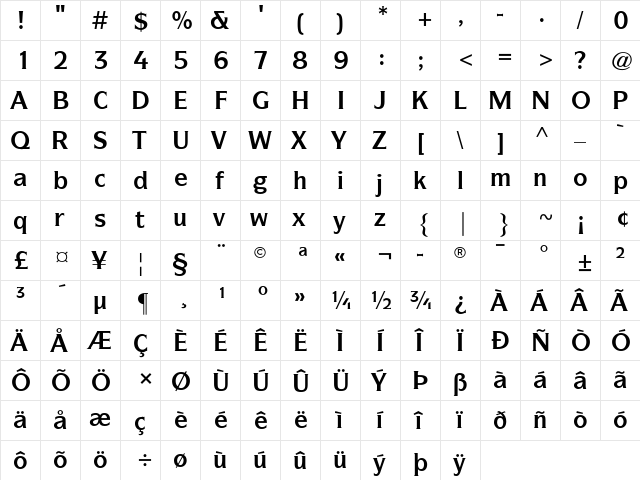
ITCSymbol Book Bold
Design Context for ITCSymbol Book Typeface
ITCSymbol Book takes a measured approach to typography — its balanced proportions and neutral character make it a reliable workhorse for both digital and print work. Its bold stroke weight gives it real presence on the page.